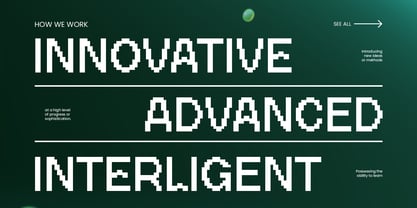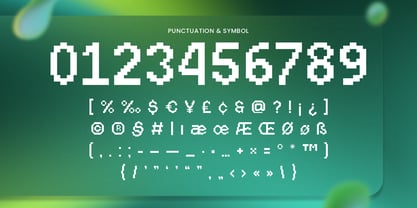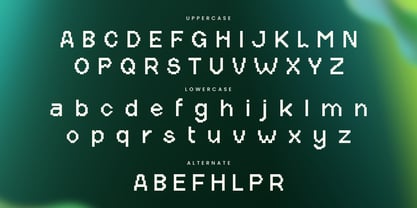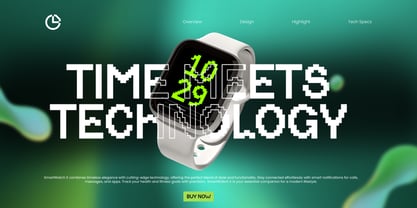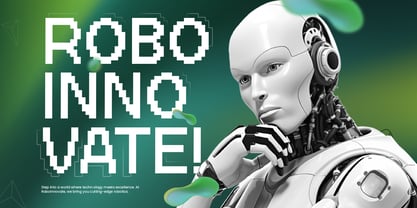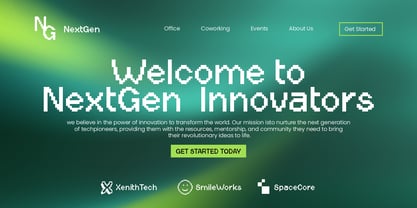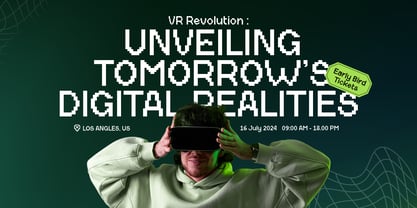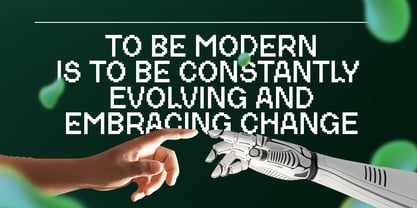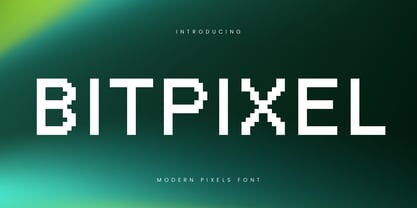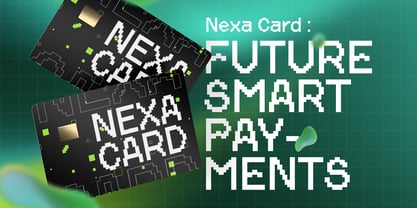
Bitpixel
The Bitpixel Font Family was designed by Zamroni Hamzah and published by Sensatype Studio. Bitpixel contains 1 styles. More about this family
Bitpixel - Modern Futuristic Font
Bitpixel is a font that brings the future to your fingertips. Designed with a modern technology aesthetic, Bitpixel is perfect for digital projects, tech branding, and futuristic designs. Its clean and sharp lines convey a sense of innovation and sophistication, making it ideal for tech startups, software companies, and digital media projects.
Inspired by the pixelated screens of early computing and combined with contemporary design trends, Bitpixel offers versatility and style. The font includes a comprehensive set of punctuation, numbers, symbols, and supports both uppercase and lowercase letters. Its multilingual support ensures your message is clear and effective across different languages and regions.
Bitpixel Modern Futuristic Font Features:
• Punctuation, Number, and Symbol
• Uppercase and Lowercase
• Multilingual Support
• Alternate Characters